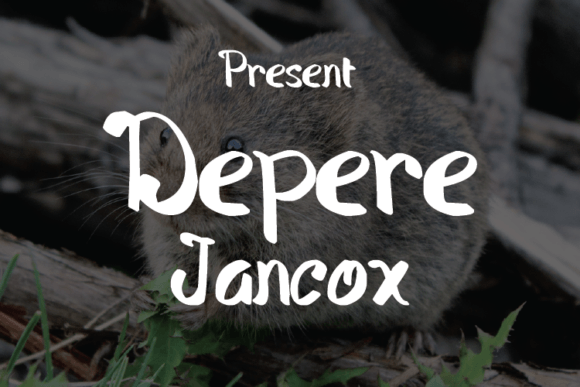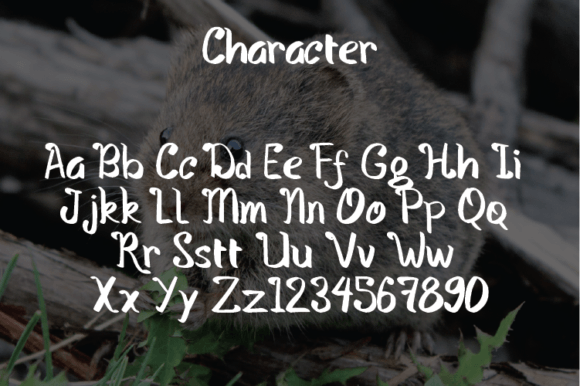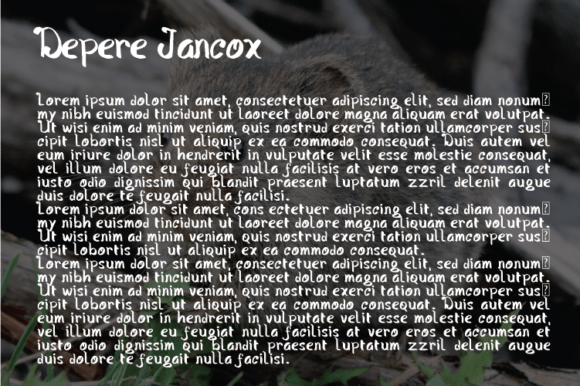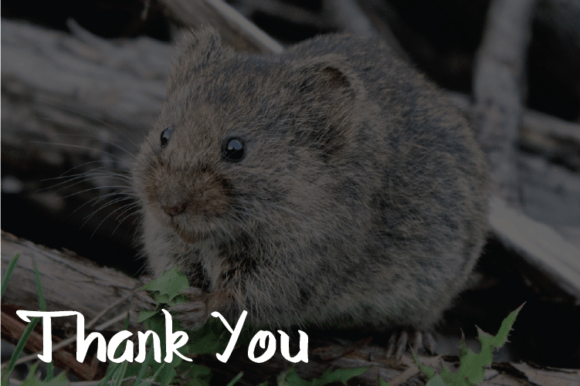
Depere Jancox Font
About Depere Jancox Font
“Depere Jancox Loro” stands out as a script typeface that seamlessly marries simplicity with a modern aesthetic. With its clean lines and contemporary design, this font is positioned as an ideal choice for projects that demand an elegant and luxurious touch. Let’s explore the versatile applications of this typeface in various design contexts.
In the realm of branding, “Depere Jancox Loro” proves itself as a powerful tool for creating elegant and luxurious logos. The script’s clean and modern look contributes to a sophisticated brand identity, ensuring that the logo stands out with a touch of refined style. The simplicity of the typeface allows for versatility, making it suitable for diverse industries, from high-end fashion to exclusive lifestyle brands.
For the world of literature and entertainment, this typeface serves as an excellent choice for book or movie design titles. Its modern look adds a contemporary flair to the visual representation of literary works or cinematic productions. Whether gracing the cover of a novel or introducing a film, the script typeface sets the tone for a stylish and engaging experience.
In the fashion industry, “Depere Jancox Loro” becomes a valuable asset for brands seeking a blend of simplicity and modernity. From clothing labels to marketing materials, the typeface enhances the brand’s image, infusing it with an air of sophistication. Its versatility makes it adaptable to different styles and design elements within the world of fashion.
Magazines, with their varied typographic needs, find a reliable companion in this script typeface. Whether used for headlines, subheadings, or stylish callouts, “Depere Jancox Loro” contributes to the creation of visually appealing and modern layouts. Its clean lines make it readable while maintaining an aesthetic appeal that resonates with contemporary design sensibilities.
Clothing applications extend beyond branding to include the design of clothing tags, promotional materials, and other brand collateral. The script’s simplicity ensures that it complements the visual elements associated with clothing, adding a touch of modern elegance.
In the digital realm, “Depere Jancox Loro” can be leveraged for creating stylish and engaging social media graphics. Whether used by fashion brands for promotional content or by influencers for sharing quotes, the typeface brings a sense of sophistication to online visuals.
Invitations for various events benefit from the elegant and modern look of this script typeface. From formal gatherings to stylish parties, “Depere Jancox Loro” adds a touch of luxury to the design, making invitations not just informative but also visually enticing.
In essence, “Depere Jancox Loro” stands as a versatile script typeface that elevates designs across a spectrum of applications. Its ability to blend simplicity with a modern and luxurious aesthetic makes it a valuable asset for designers aiming to infuse their projects with elegance and contemporary style.